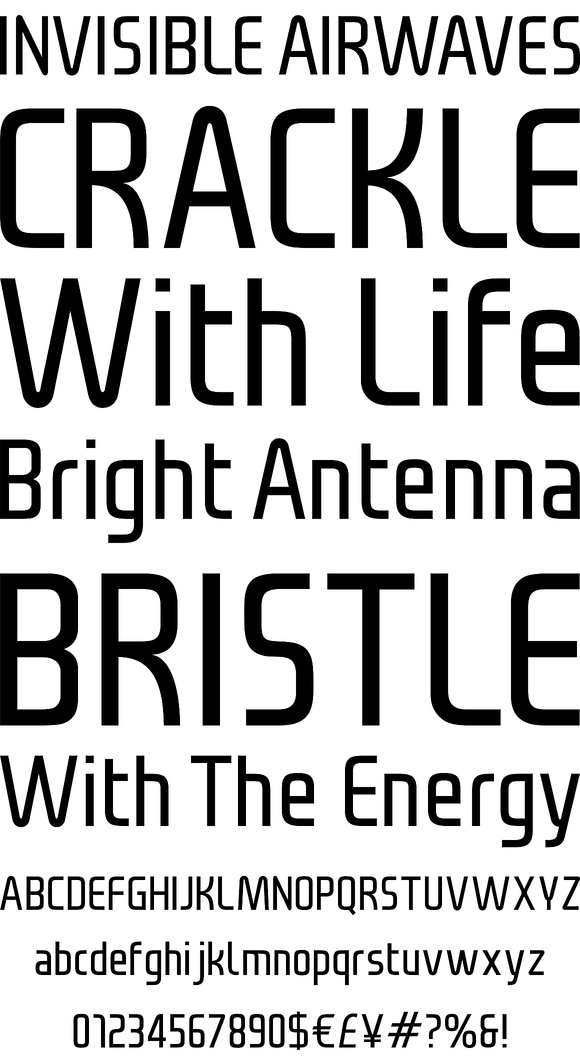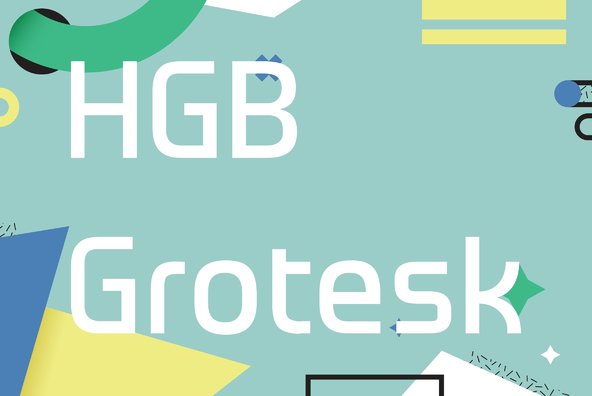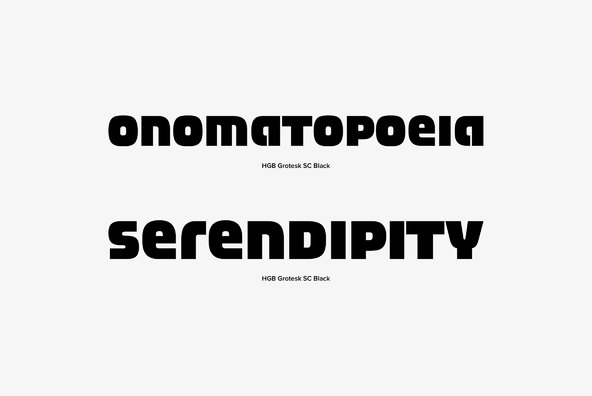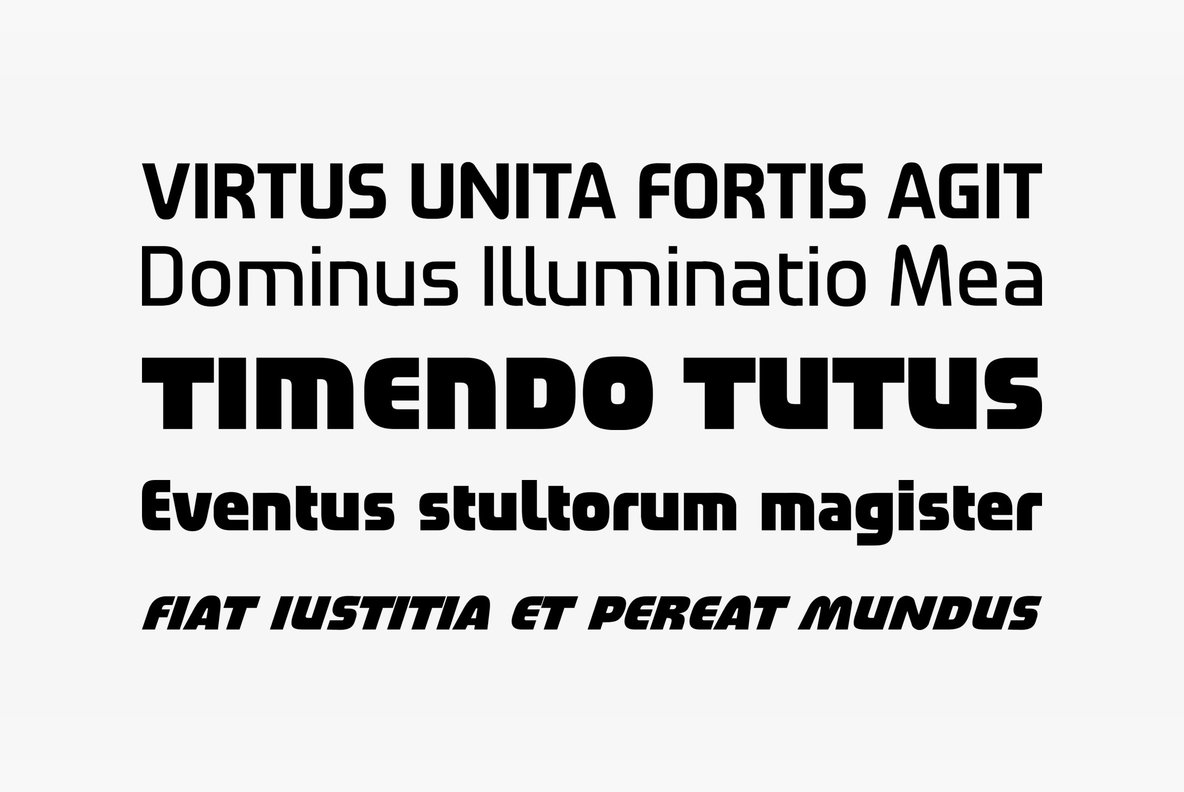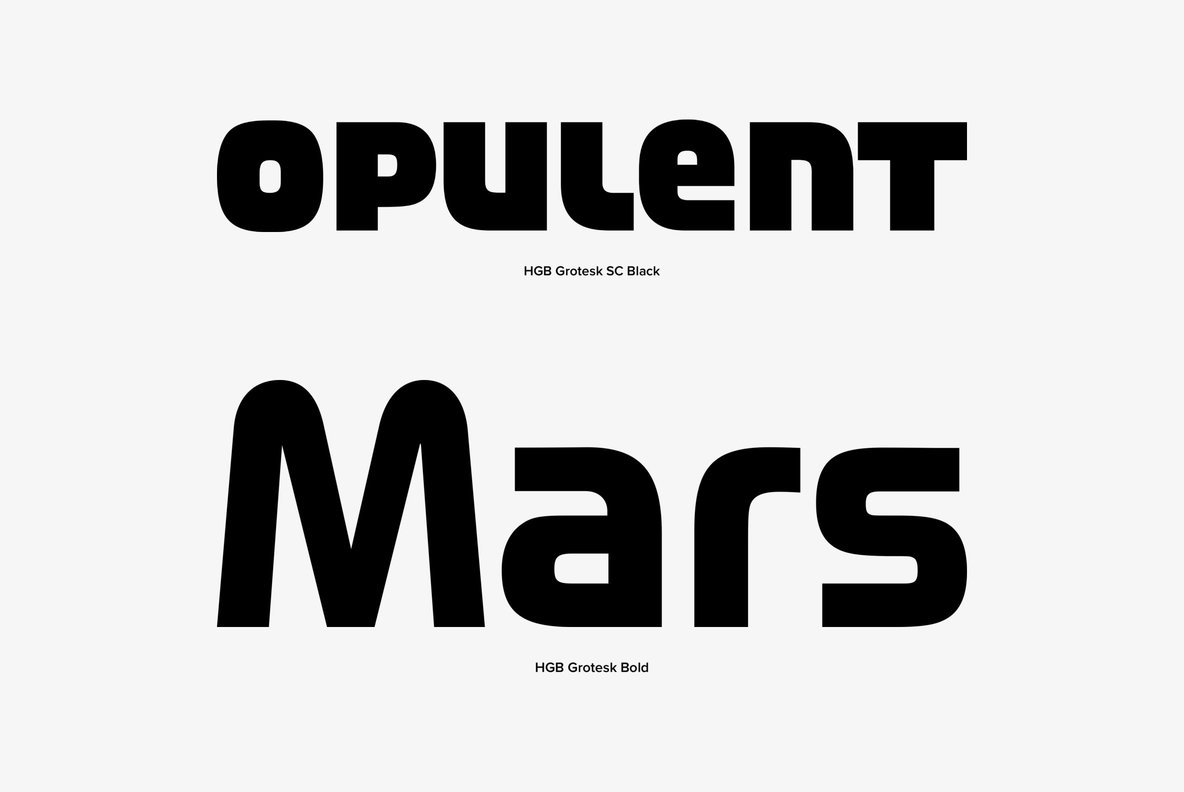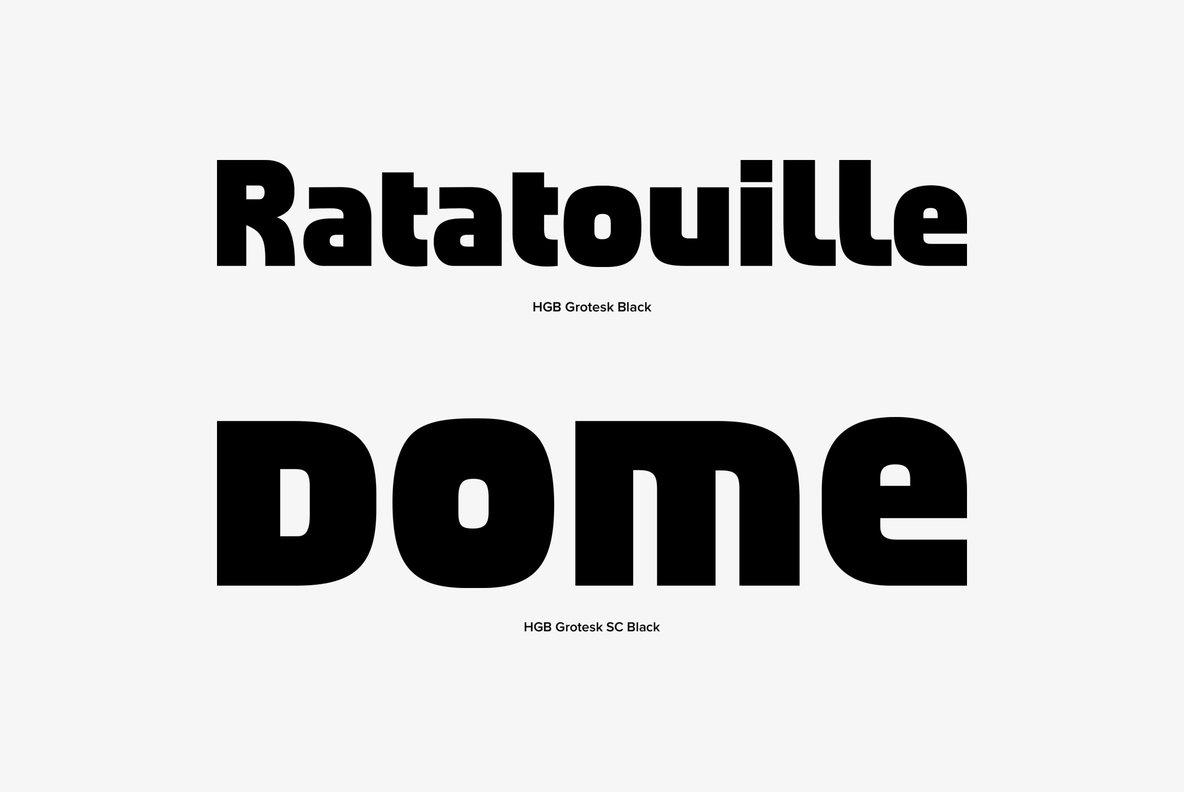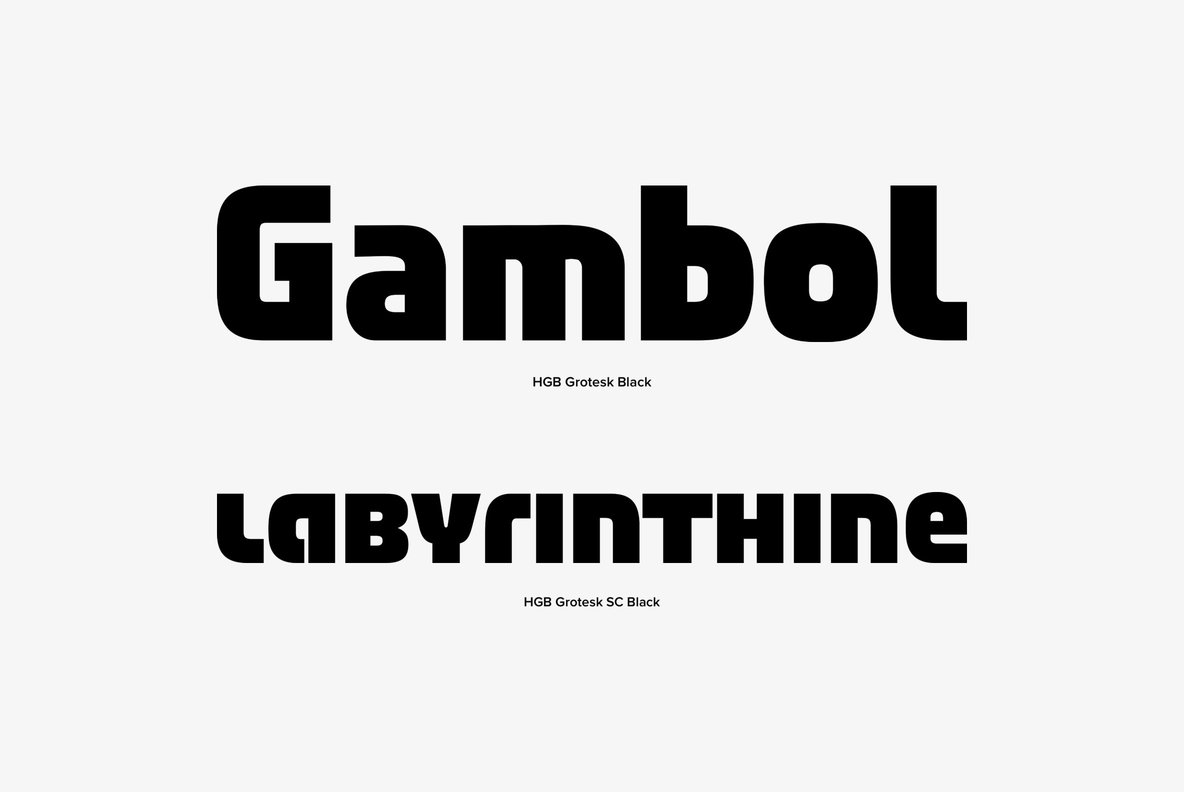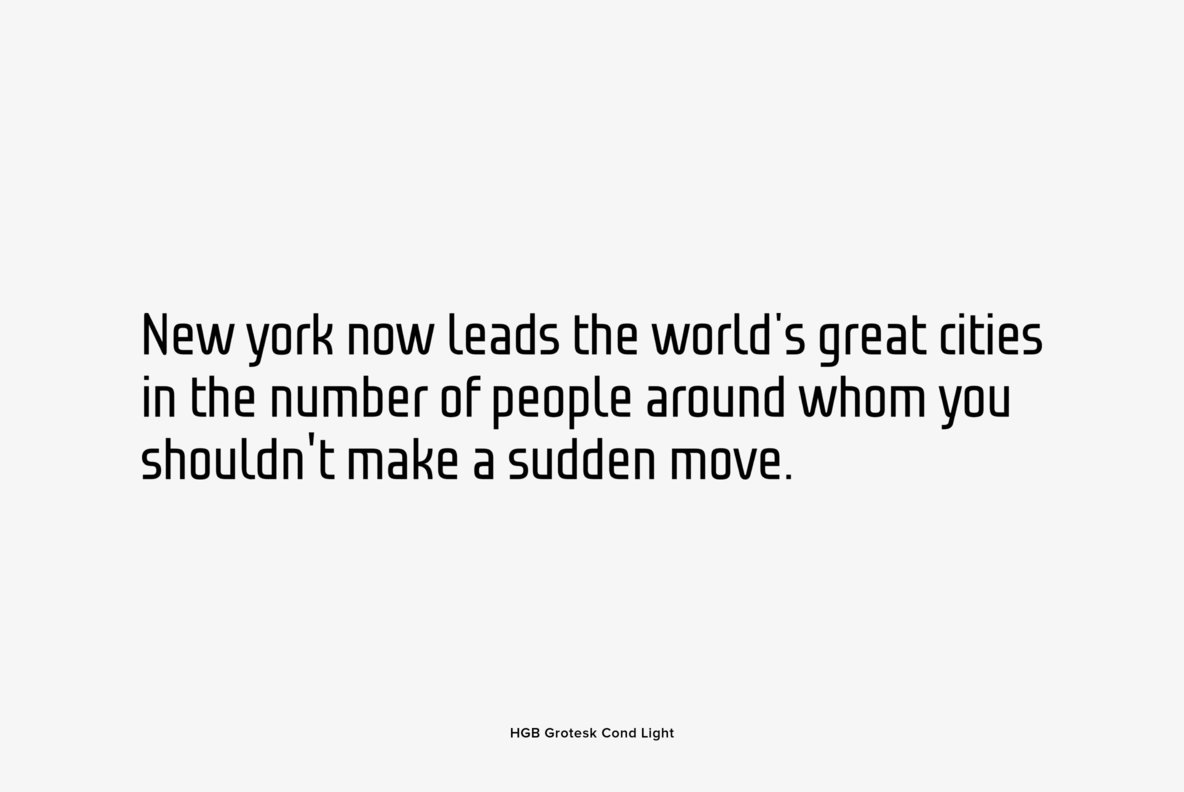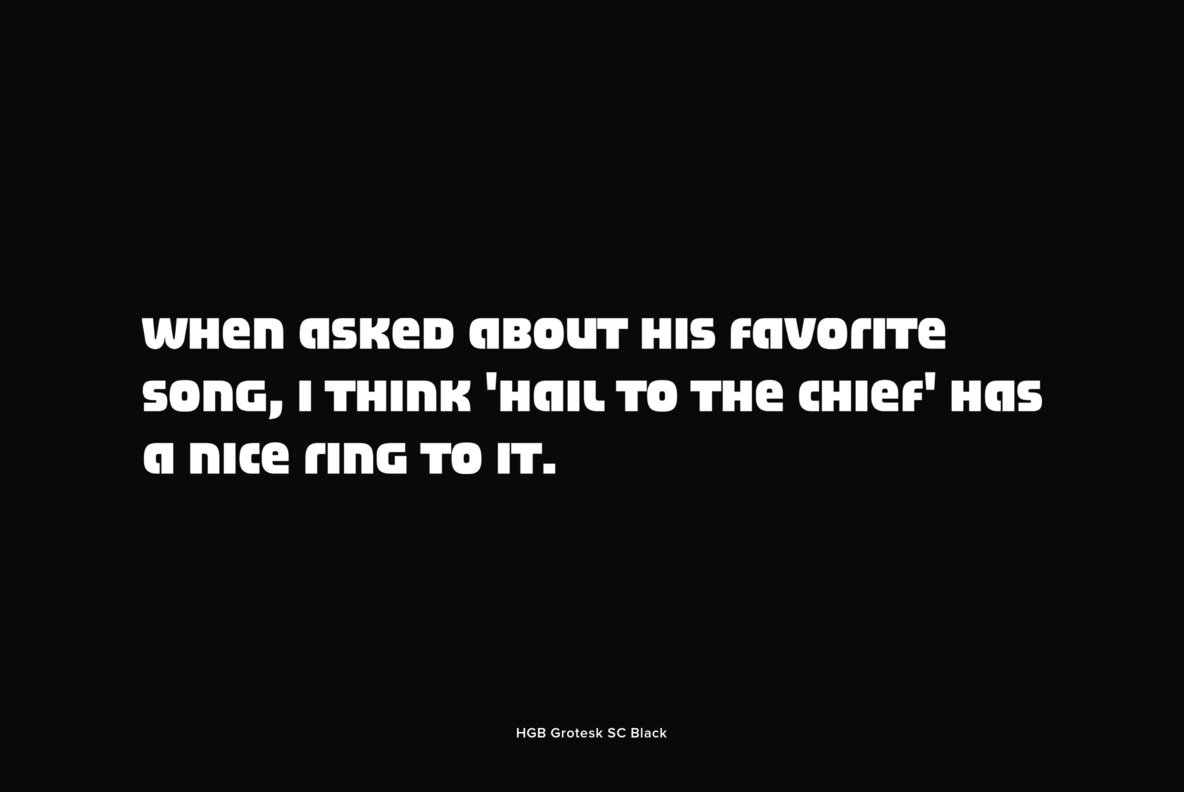
Designed by Hellmut G. Bomm in 2005, HGB Grotesk is a clean, modern and slightly tech sans-serif font design.
Designed by Hellmut G. Bomm in 2005, HGB Grotesk is a clean, modern and slightly tech sans-serif font design. Use the light version in softer design projects, or use the Black weight for more masculine and heavy type setting.